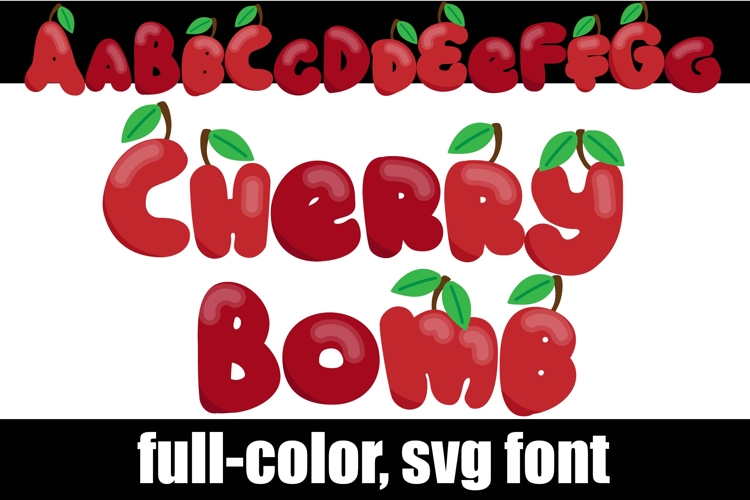
Cherry Bomb Color Font
This hand-crafted font is a full-color font featuring ripe cherries. There is an alt case of each letter with a different color combination.